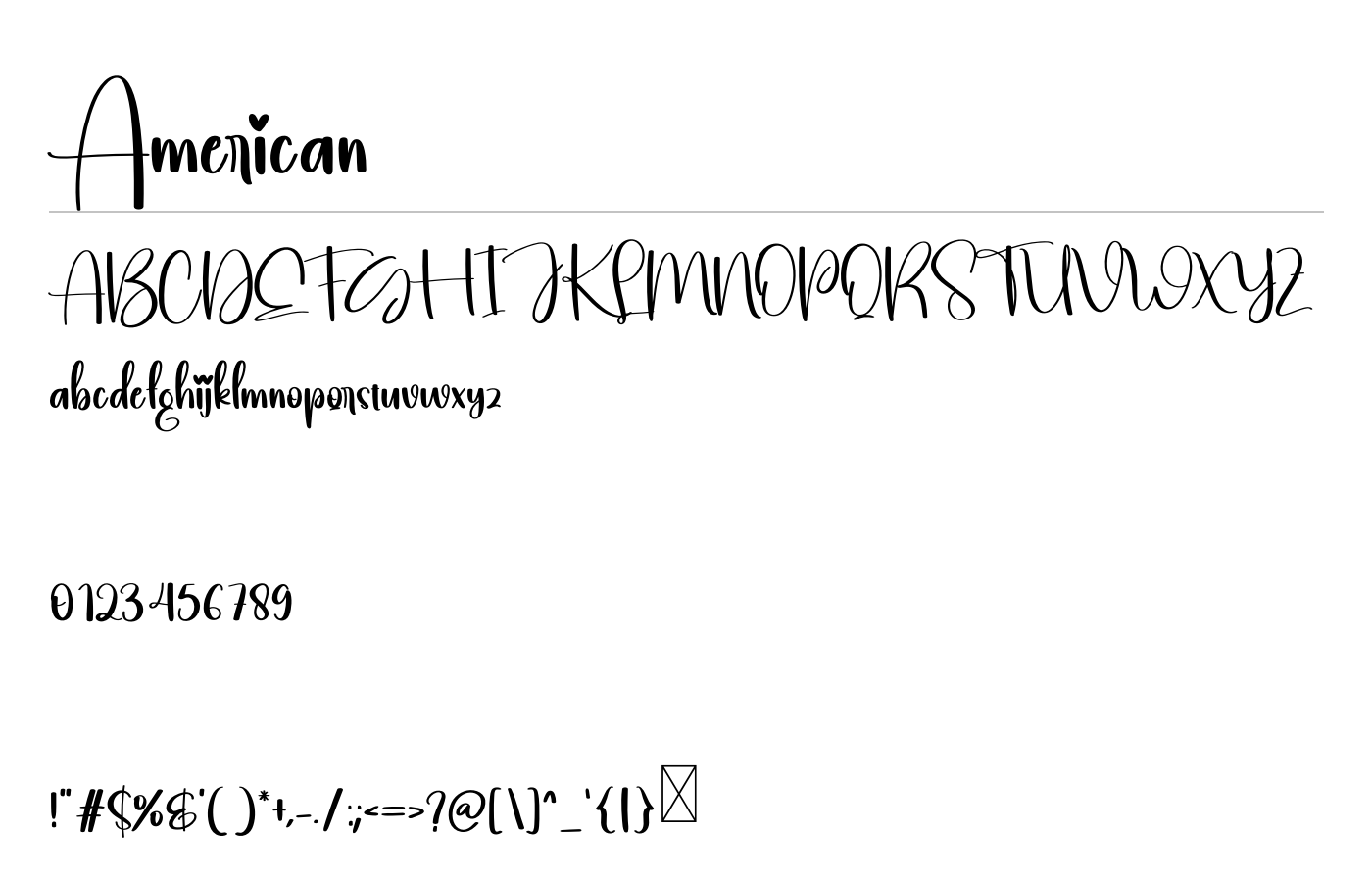
American Font is a playful and modern handwritten script with a mix of tall, whimsical uppercase letters and bold, rounded lowercase characters. Its lively, casual style and unique letterforms make it perfect for creative branding, invitations, or fun editorial designs where a personal, approachable touch is desired. This font stands out with its friendly charm and expressive flair, ideal for projects that want to convey warmth and individuality.
American Font